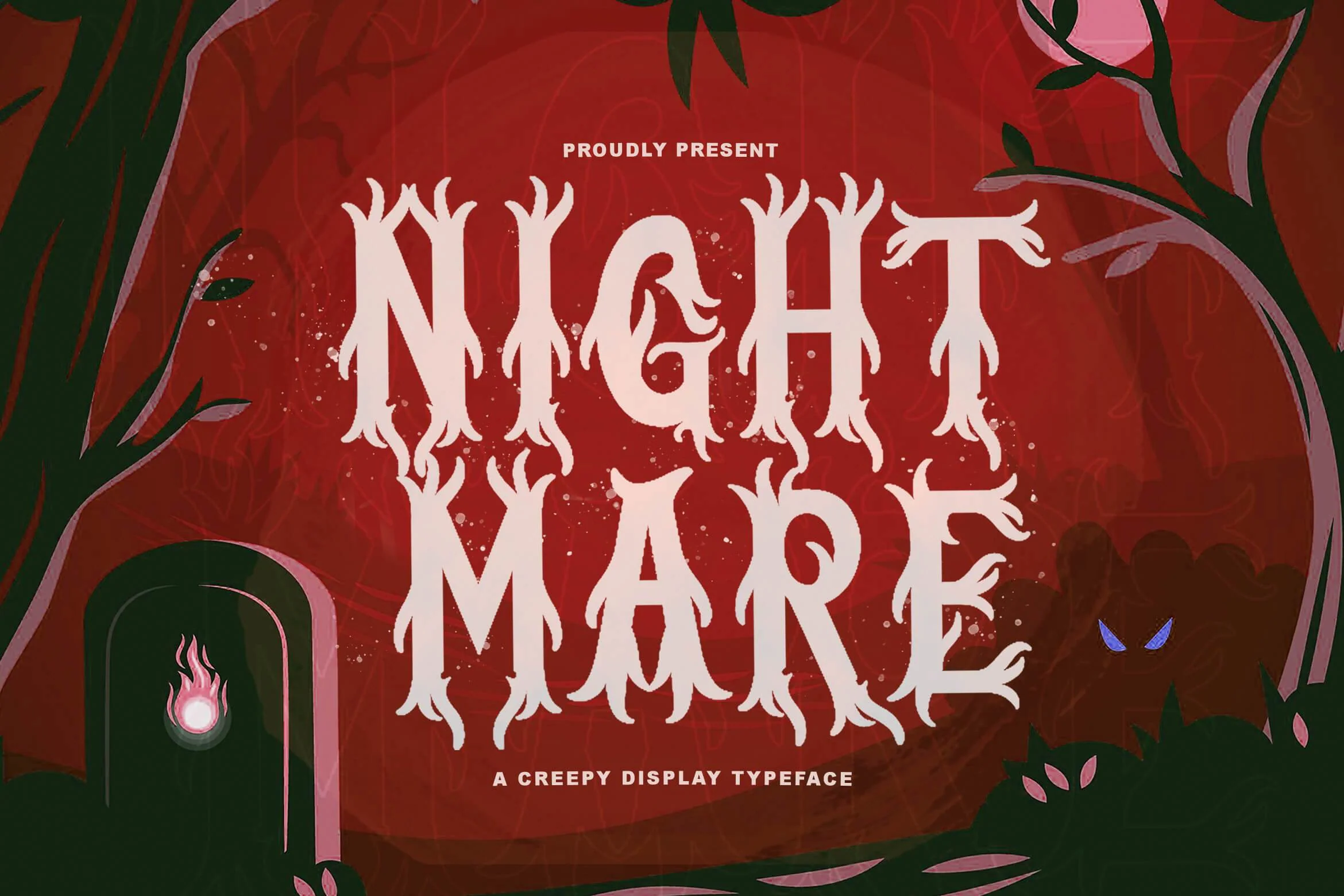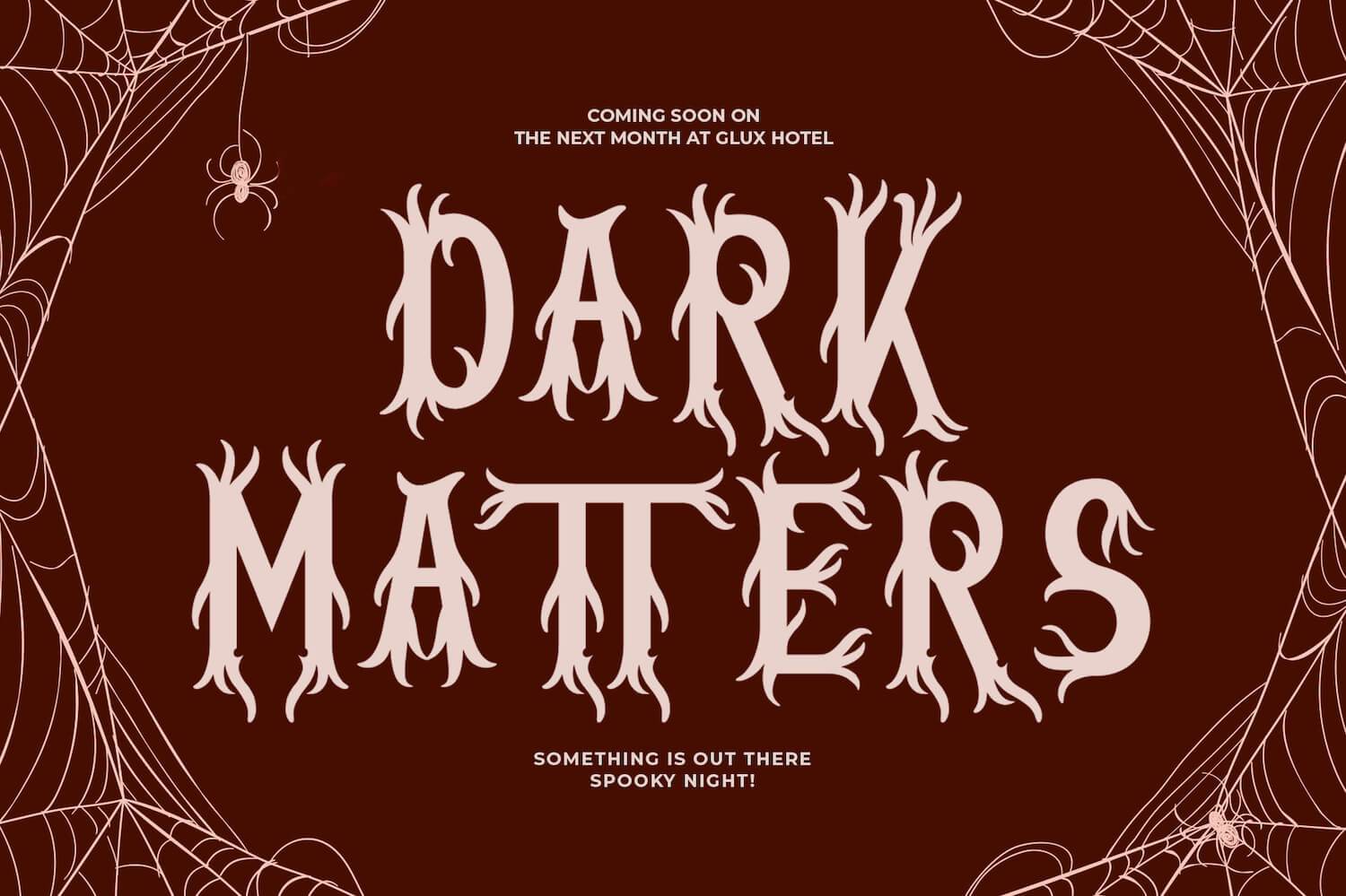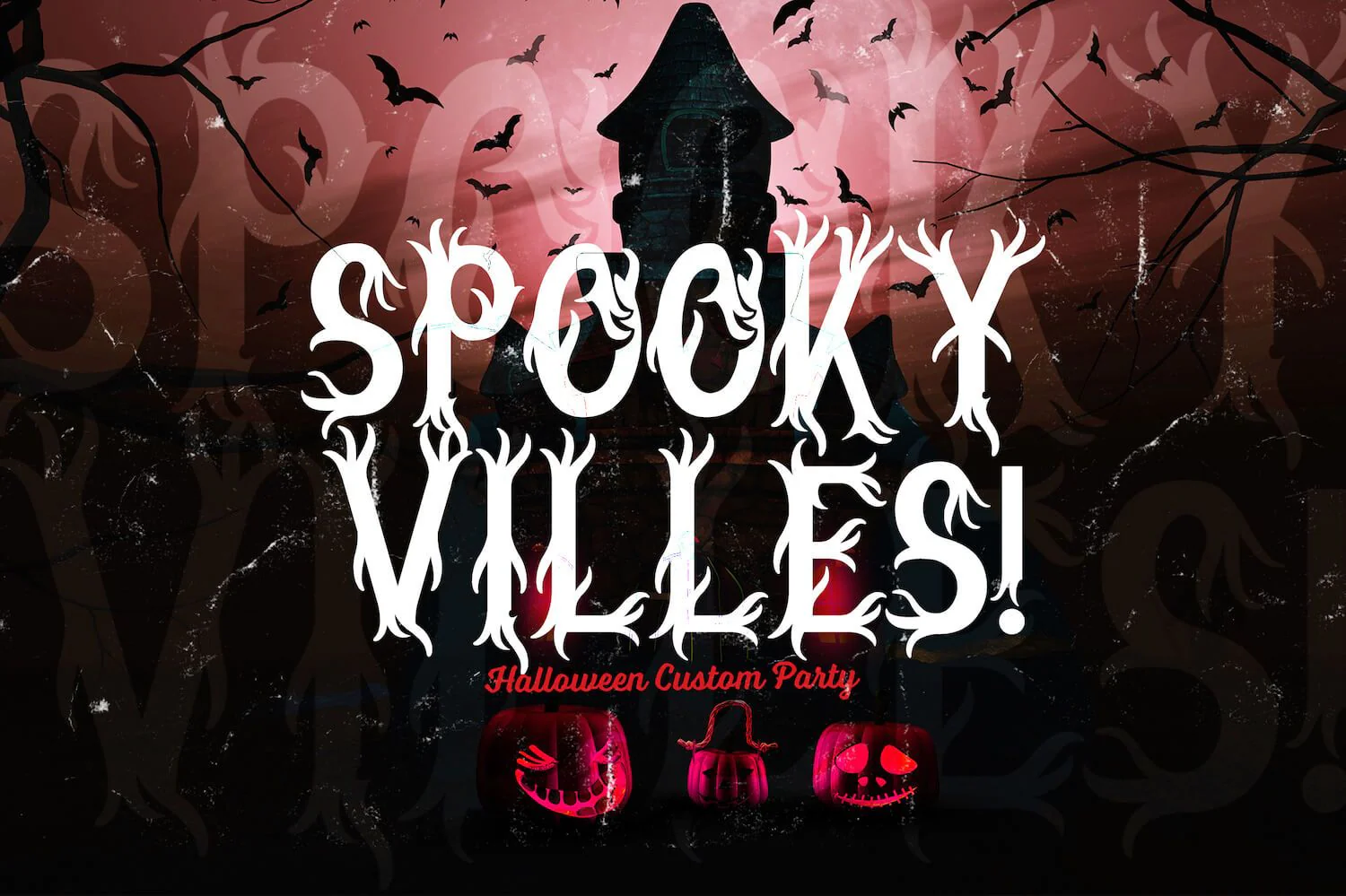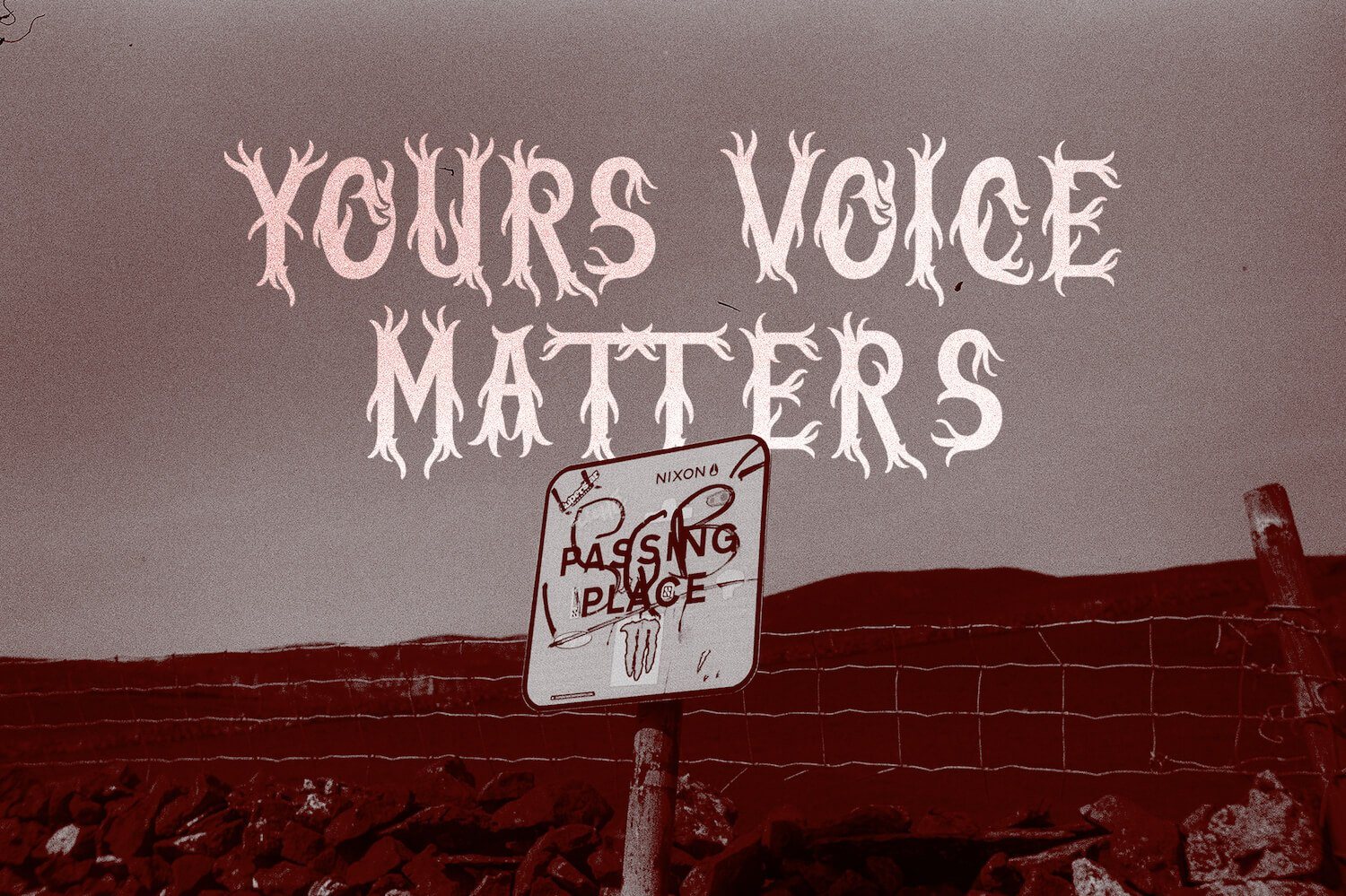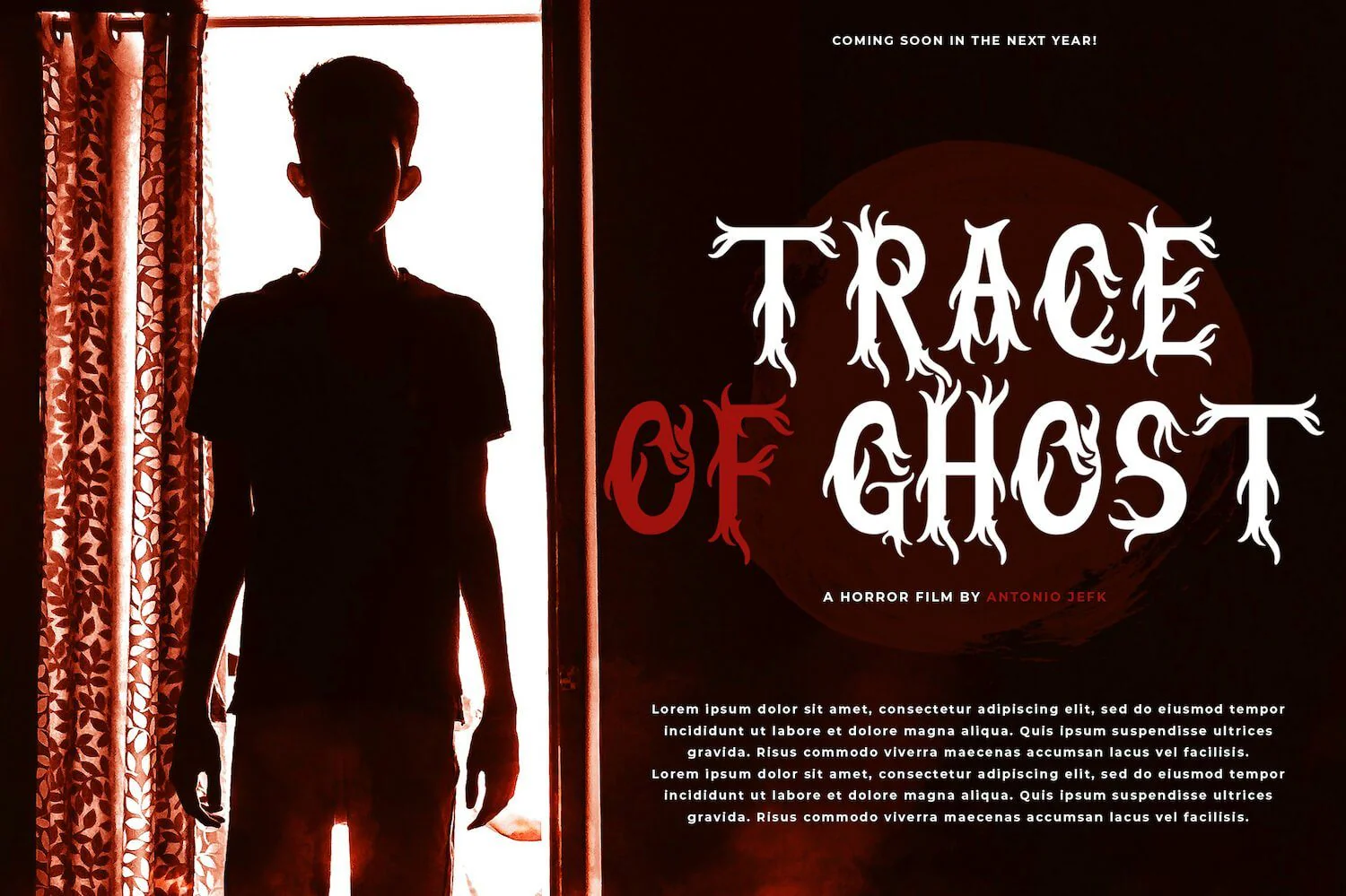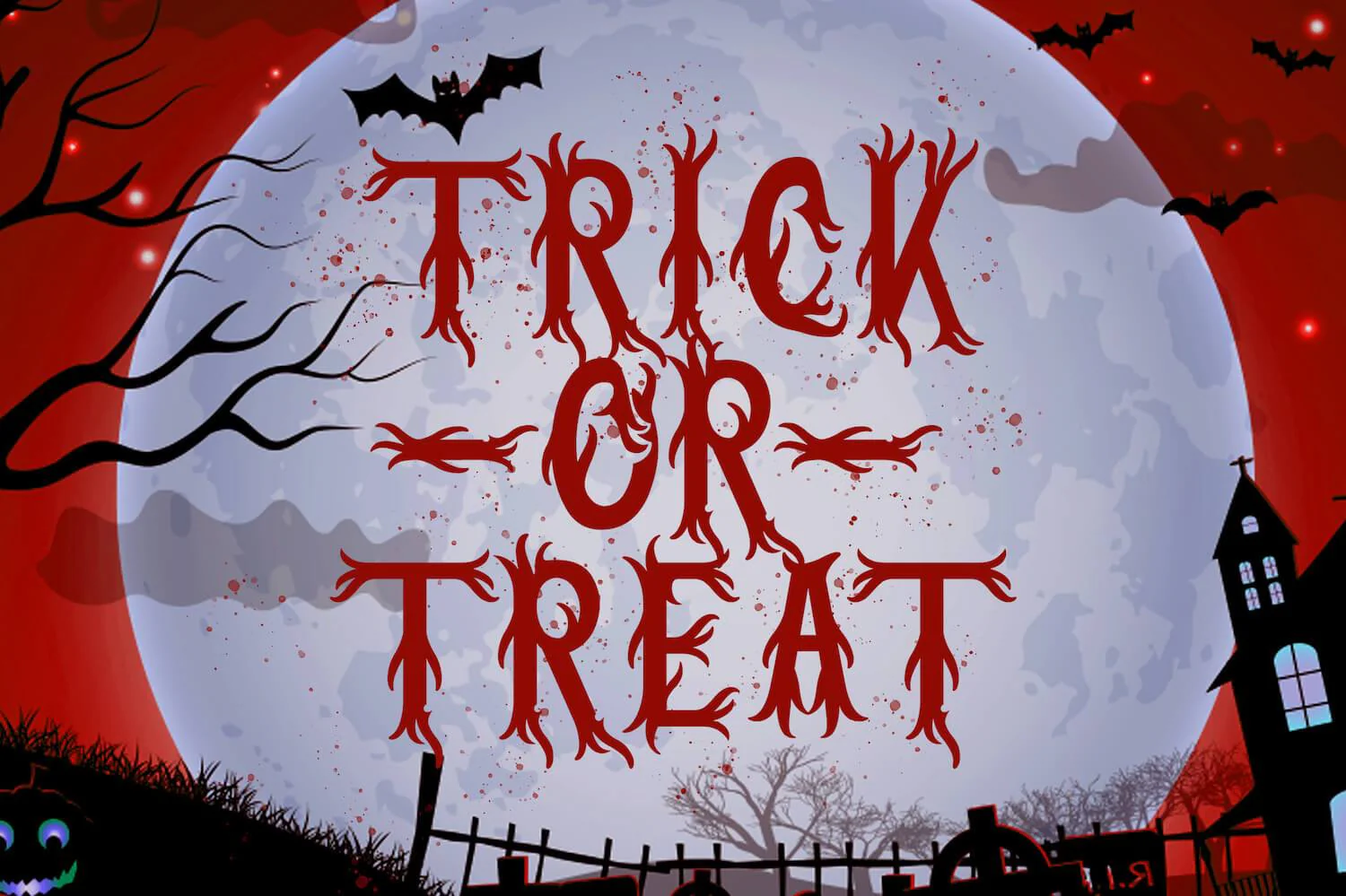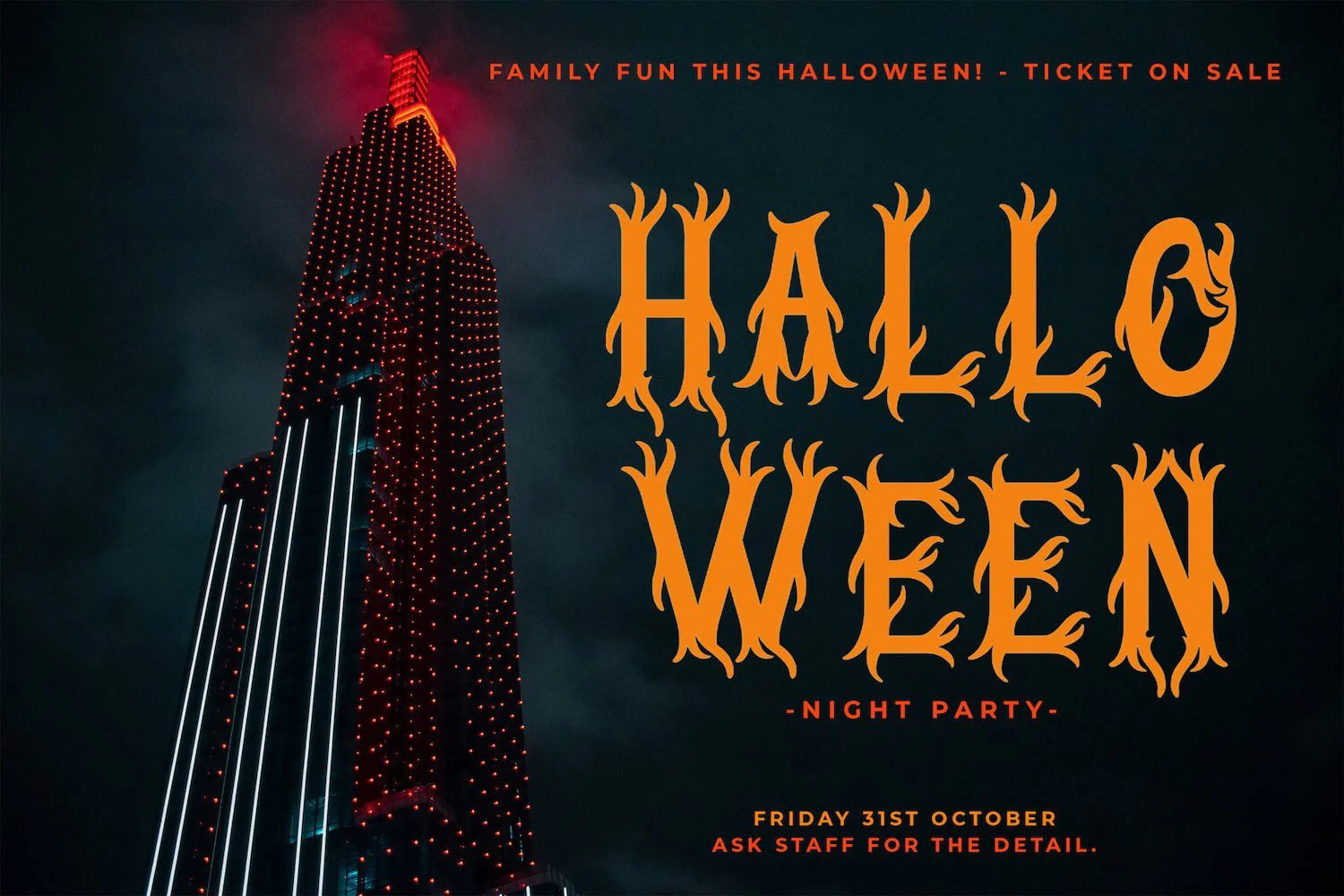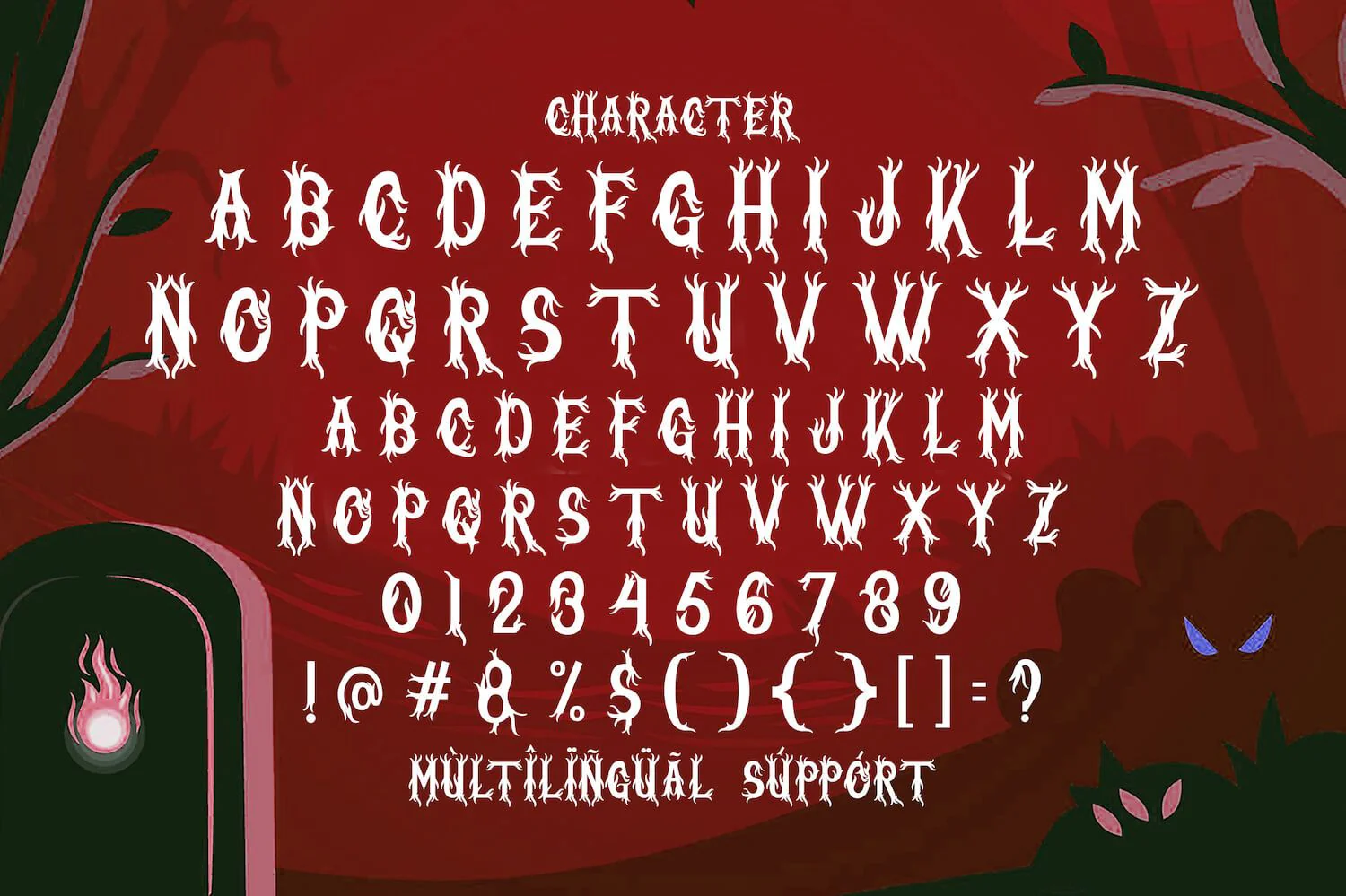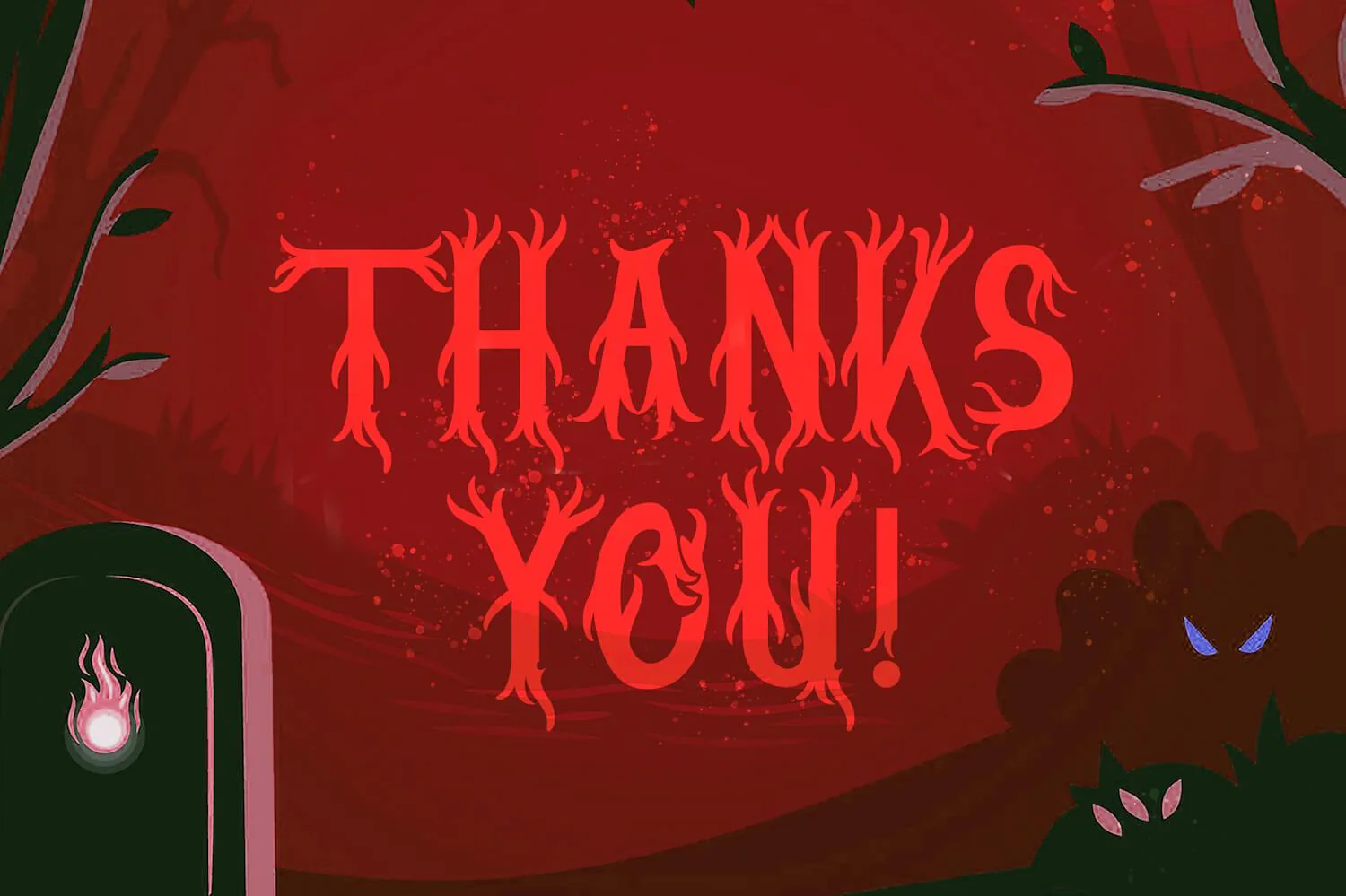
Nightmare - Horror Font
Introducing Nightmare - Horror Font
Nightmare is display font with horror and scary style. Nightmare has unique design that is combined with decorative horror style. This font is perfect for your horror projects, such as: Movie Posters, Lettering on Cover Books, Album music covers, Logo Brand, and much more.
Introducing Nightmare - Horror Font
Nightmare is display font with horror and scary style. Nightmare has unique design that is combined with decorative horror style. This font is perfect for your horror projects, such as: Movie Posters, Lettering on Cover Books, Album music covers, Logo Brand, and much more.